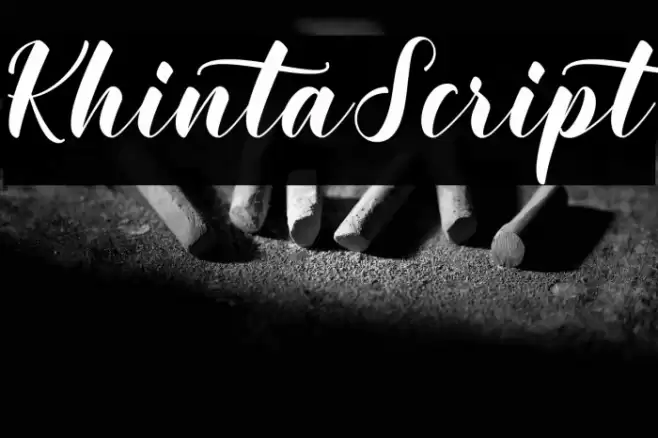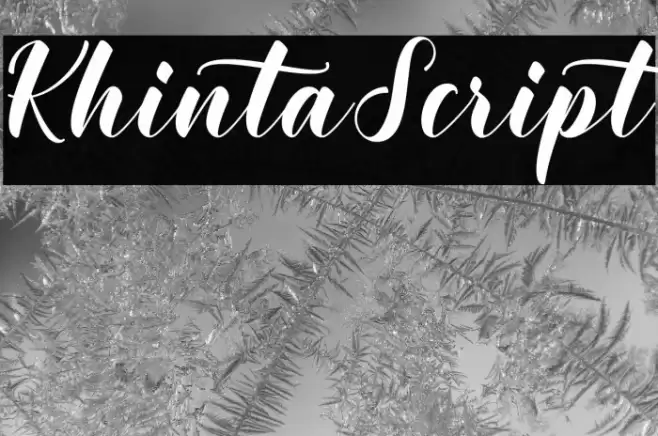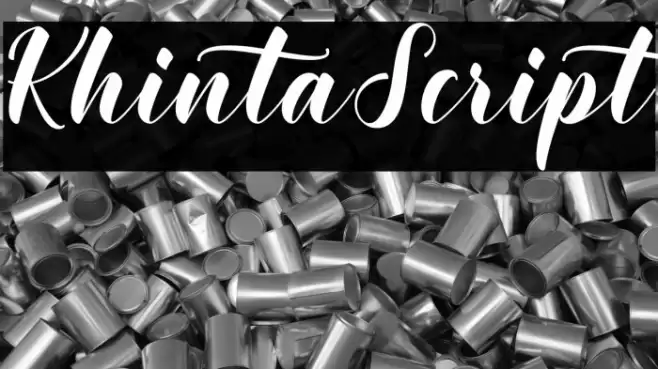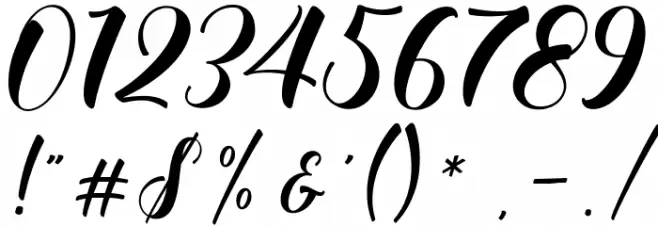
KhintaScript Font
KhintaScript Description
This elegant script font features fluid, cursive strokes that convey a sense of sophistication and grace. The uppercase letters are characterized by sweeping curves and flourishes, while the lowercase letters maintain a consistent flow with slightly exaggerated loops and tails. The numerals are designed with a similar flair, ensuring a cohesive look across all characters. The special characters complement the overall style, adding a touch of whimsy and charm. This font is perfect for creating a sense of elegance and refinement in any design project.
An elegant script font with fluid, cursive strokes and sophisticated flourishes from Regular fonts.
- Proposed Projects: Ideal for wedding invitations, elegant branding, greeting cards, and upscale packaging.
- Overall Style: Elegant, Sophisticated
- Use Case: Headlines, Invitations, Branding